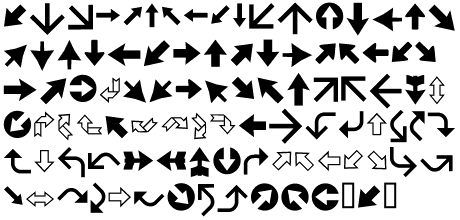
Character Set
IngyArrowsBetween
Arrows are a very useful dingbat, and this CD has three arrow fonts: IngyArrows, IngyArrowsBetween, and IngyArrowsTwo. In each of them, the arrows are presented in eight positions, each rotated 45 degrees from the previous. IngyArrowsBetween contains arrows which are a 50% interpolation of the other two arrow fonts.